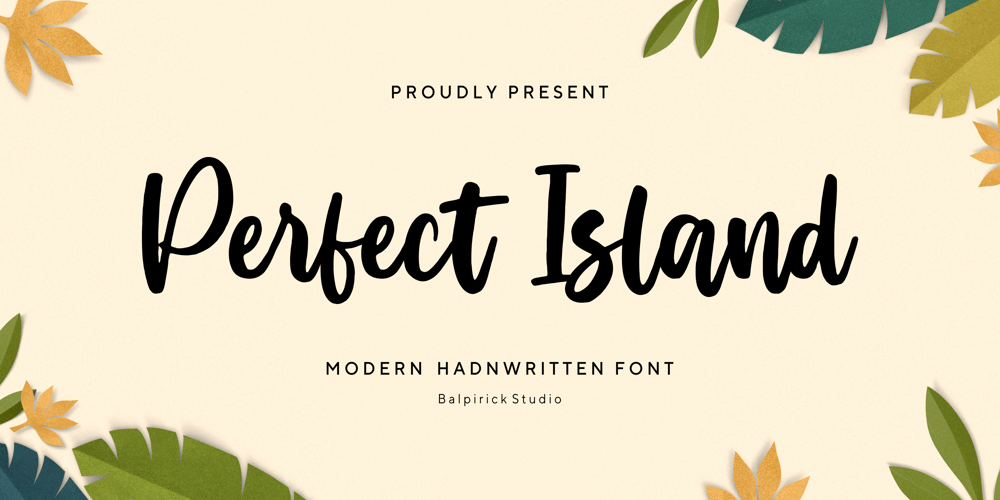
Perfect Island
Perfect Island font
Perfect Island Font Family was designed by Restu Angga and published by Balpirick. Perfect Island contains 1 styles and family package options. Perfect Island is a Modern Handwritten Font.Perfect Island is a lovely script font featuring charming, playful characters that seem to dance along the baseline. Add this font to your most creative ideas, and notice how it makes them stand out!Perfect Island also multilingual support.Enjoy the font, feel free to email.Thank you!